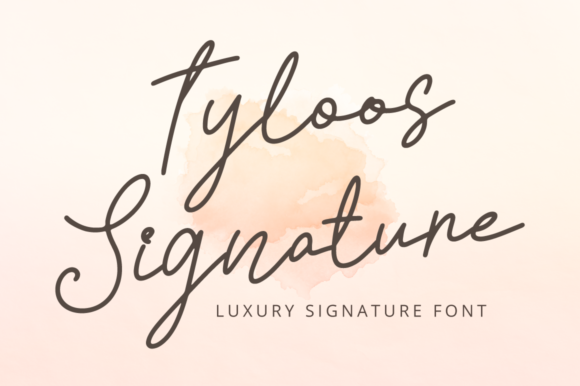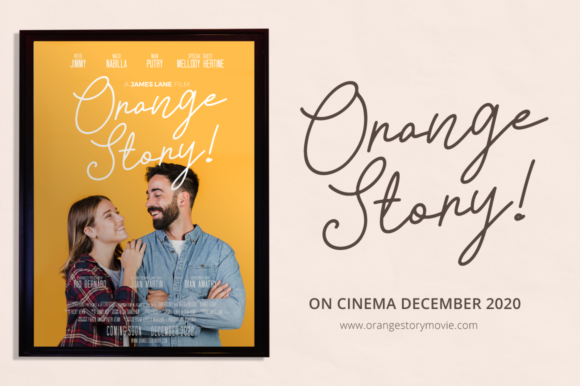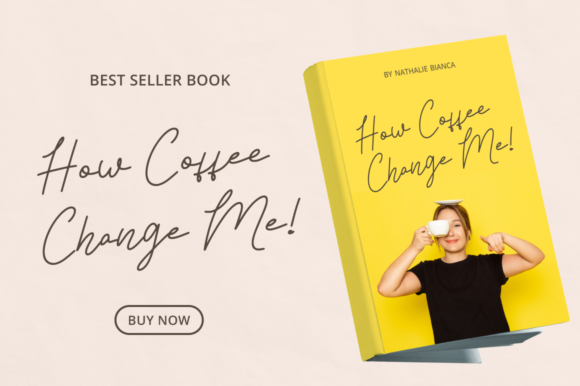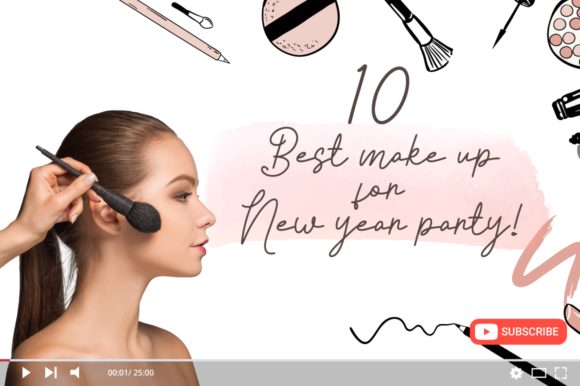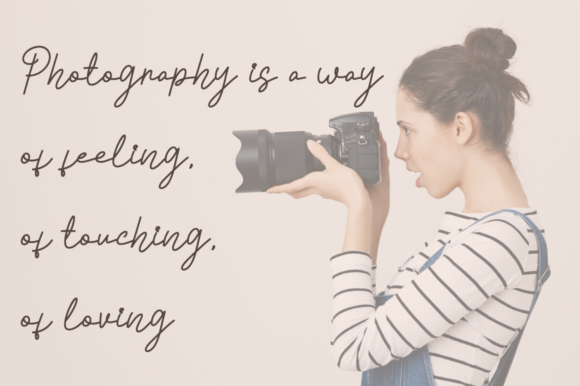
Tyloos Signature Font
About Tyloos Signature Font
Tyloos Signature is a relaxed and timeless handwritten font. Fall in love with its incredibly versatile style and use it to create gorgeous wedding invitations, beautiful stationary art, eye-catching social media posts, and much more!